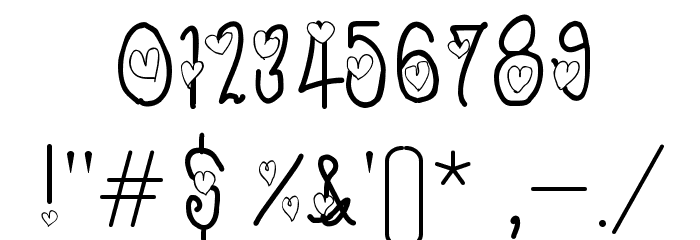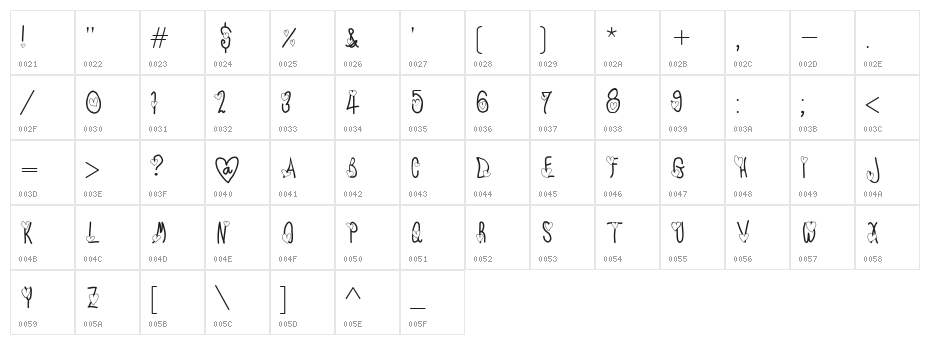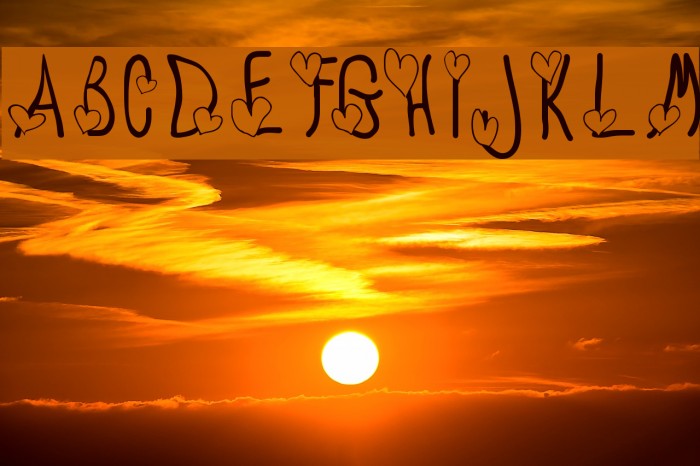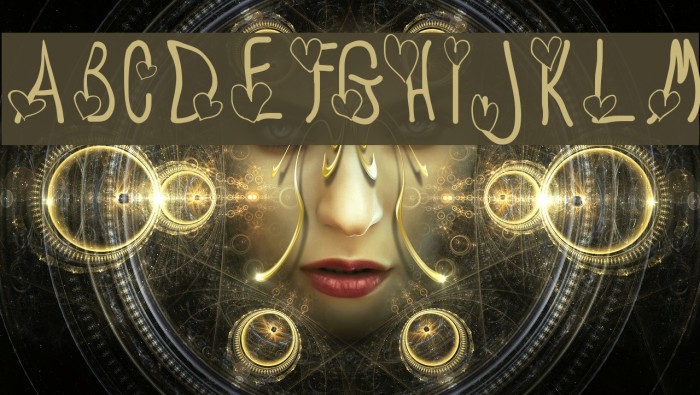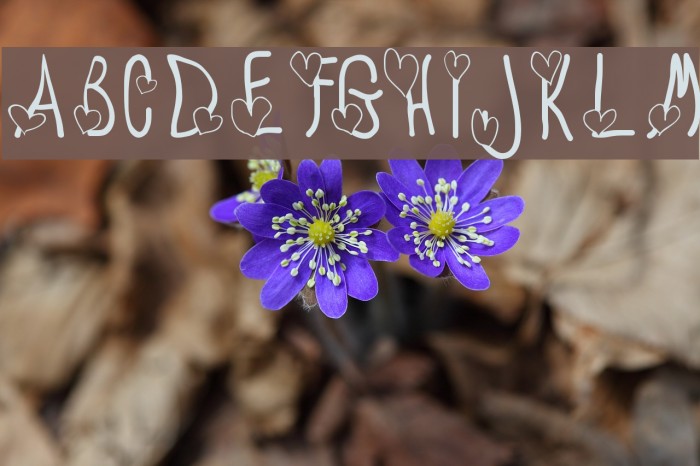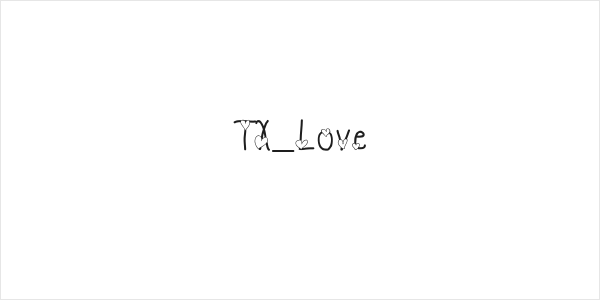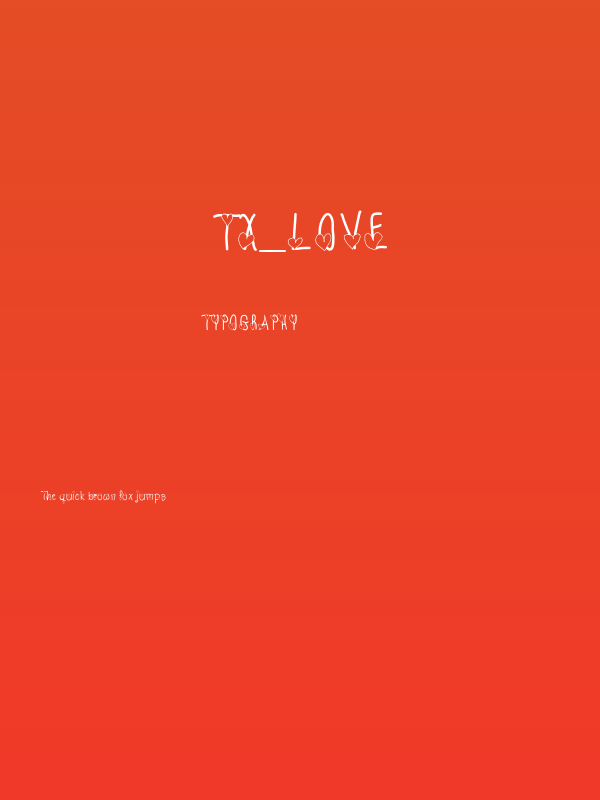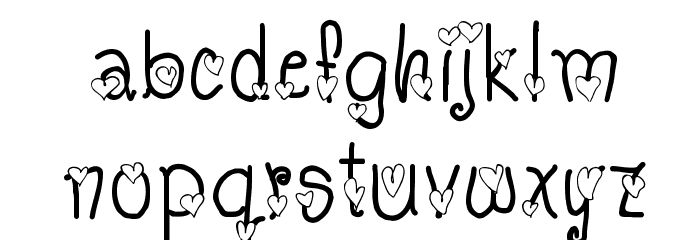
TX_Love Font
TX_Love Description
This playful and whimsical font features heart motifs integrated into each character, creating a romantic and charming appearance. The uppercase and lowercase letters are designed with a consistent style, where the hearts are cleverly placed to form part of the letter structure. Numbers and special characters also follow this theme, ensuring a cohesive look across all glyphs. The strokes are moderately thick, giving the font a bold presence, while the heart shapes add a decorative touch. This font is ideal for projects that aim to convey love, affection, or a playful tone.
| Overall Style | Playful, Romantic, Decorative |
| Use Case | Headlines, Invitations, Greeting Cards |
| Proposed Projects | Ideal for Valentine's Day cards, wedding invitations, romantic branding, and playful designs. |